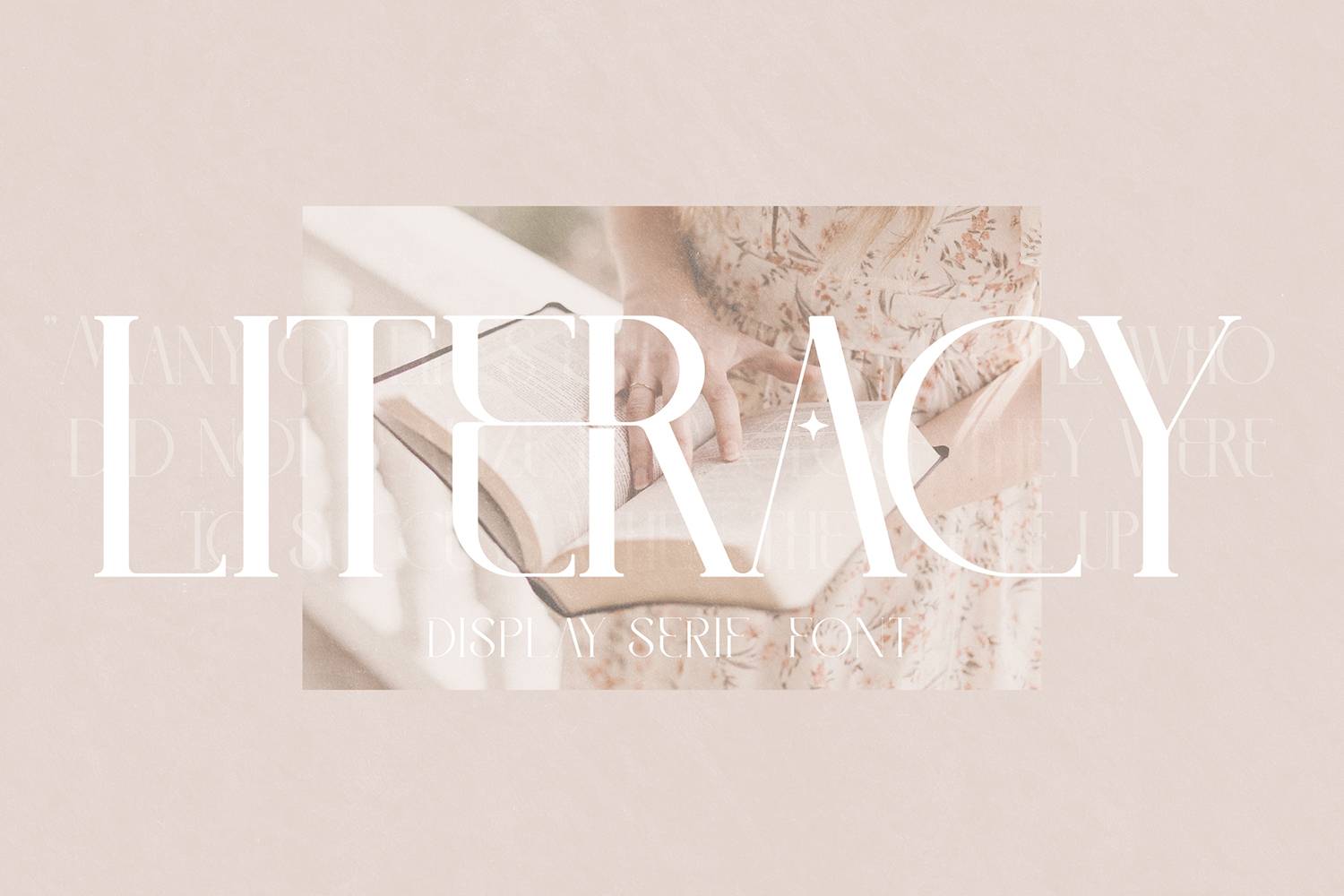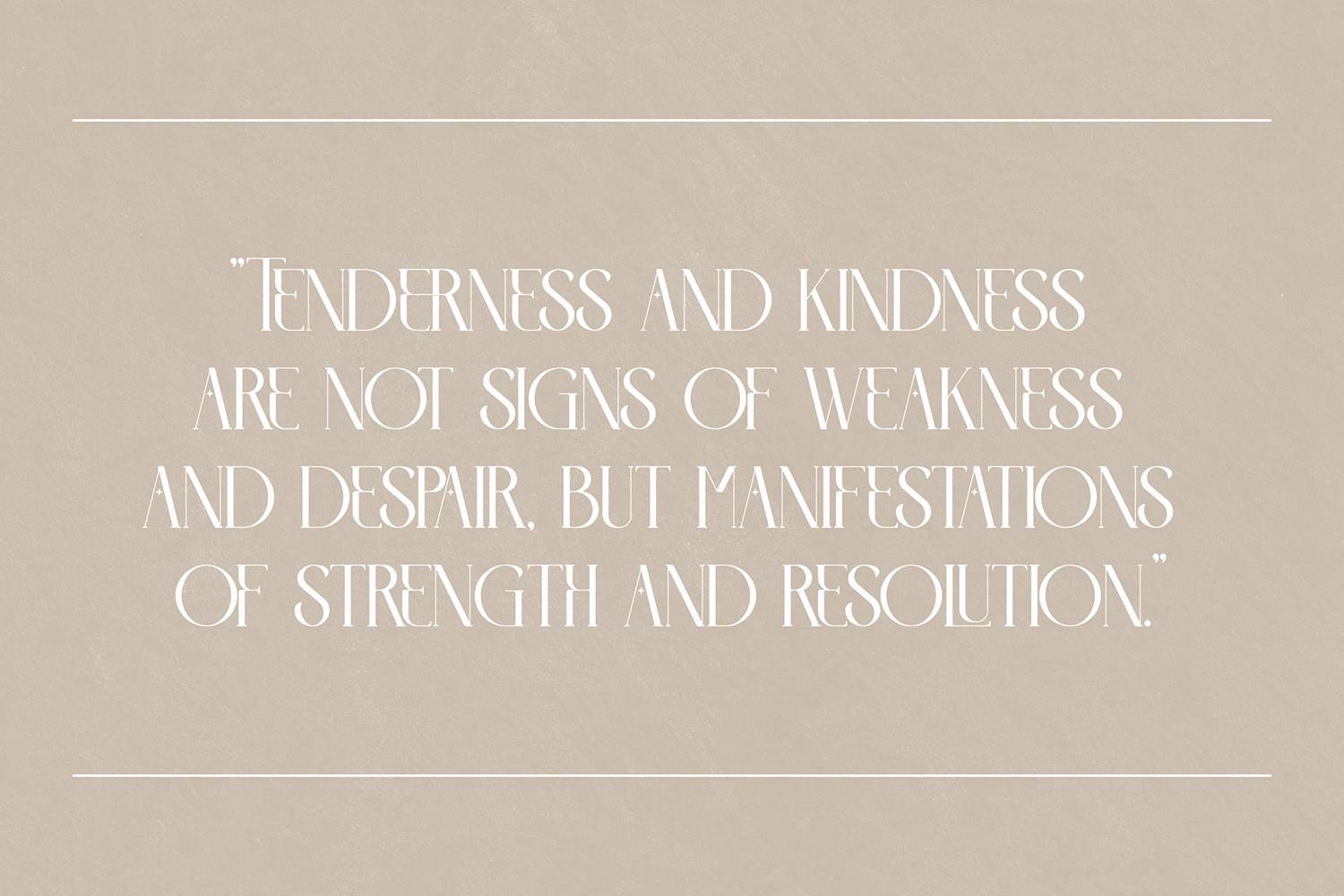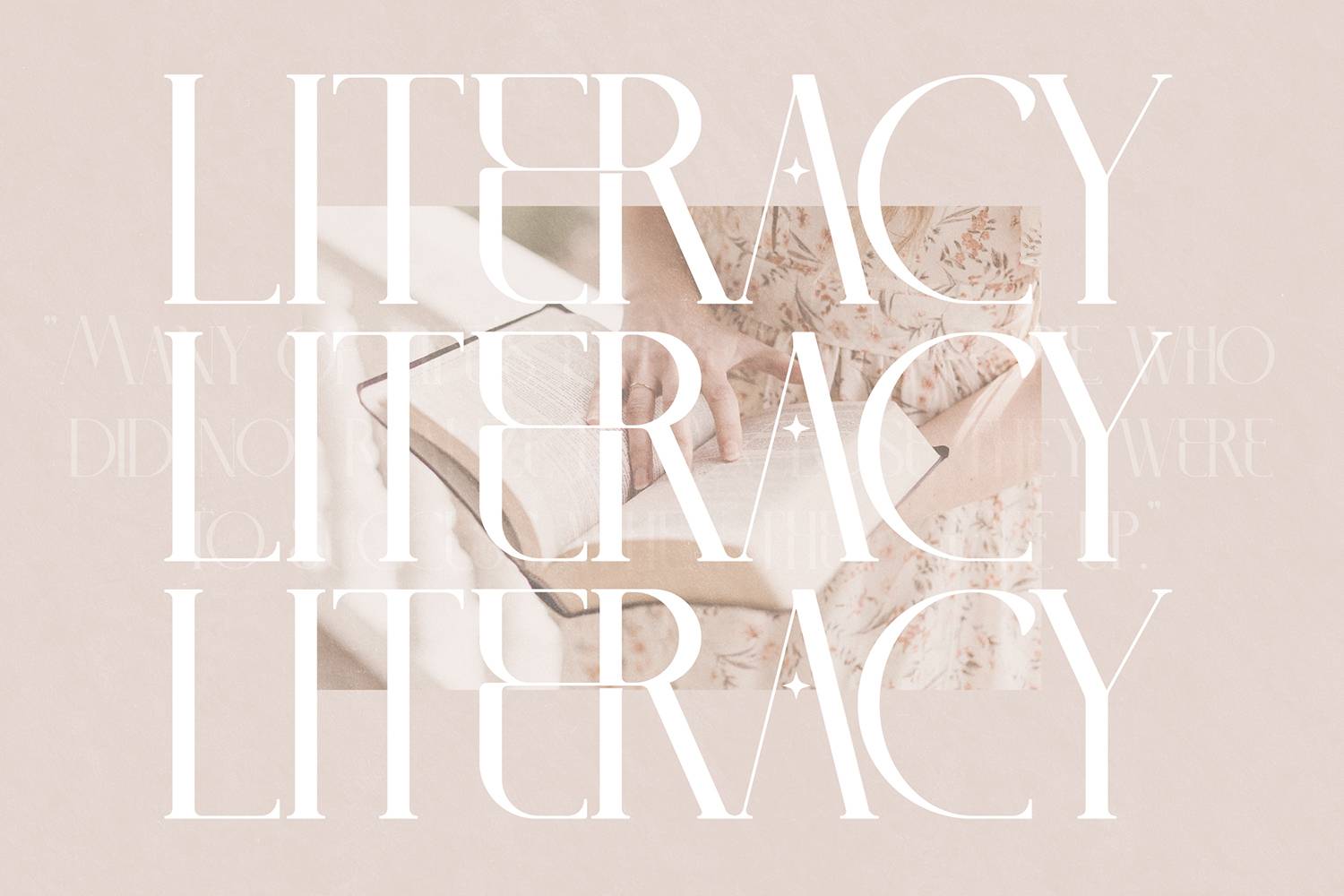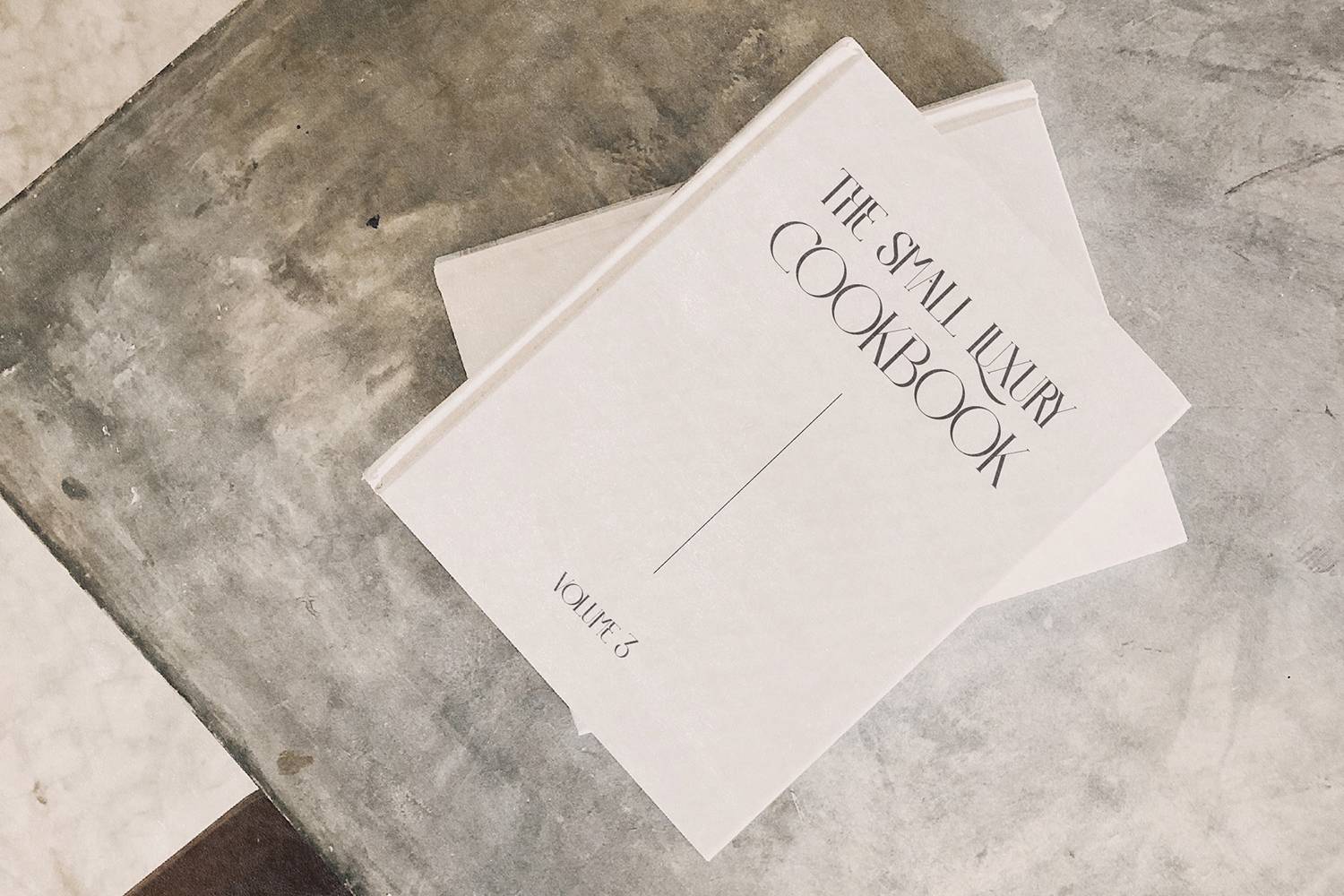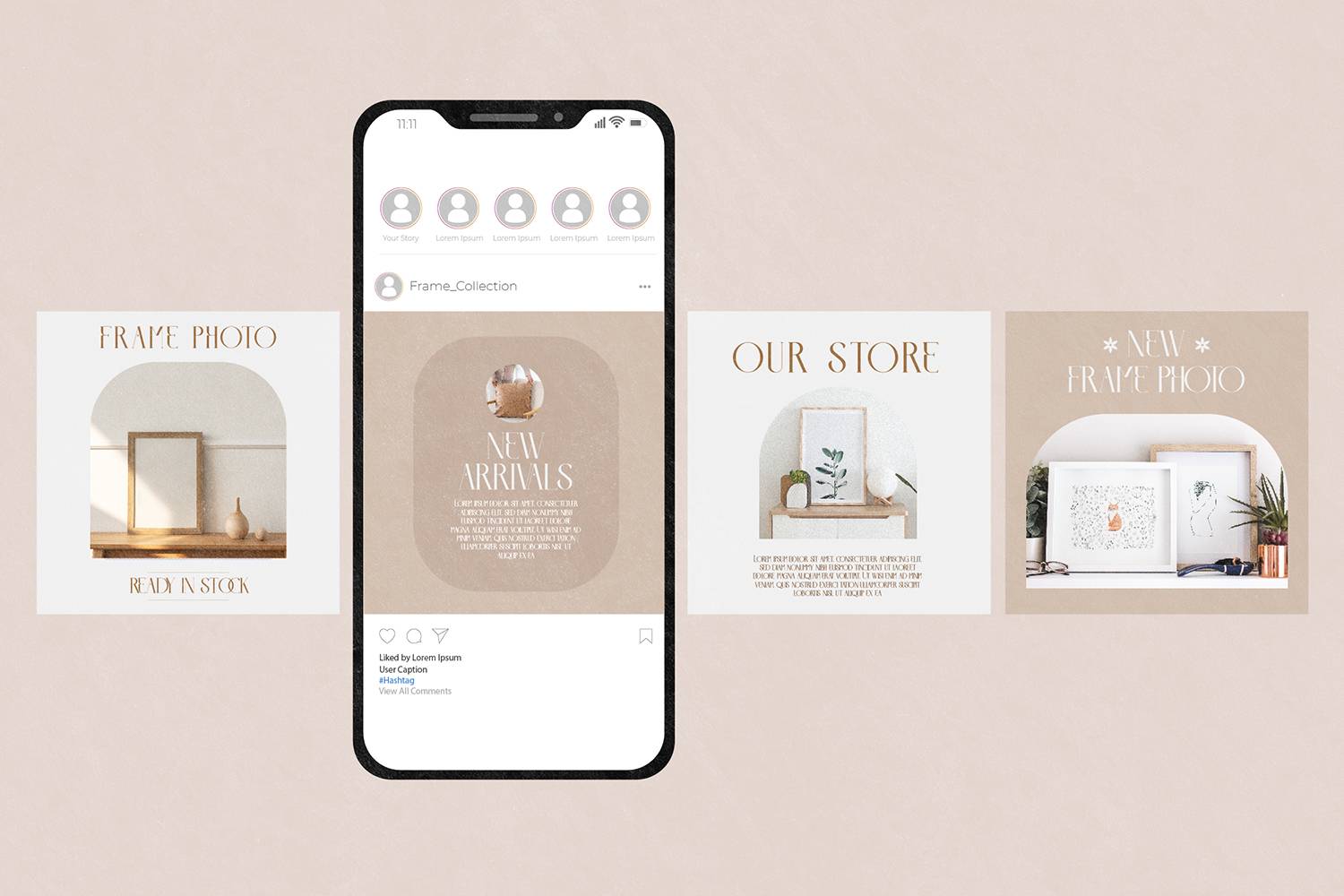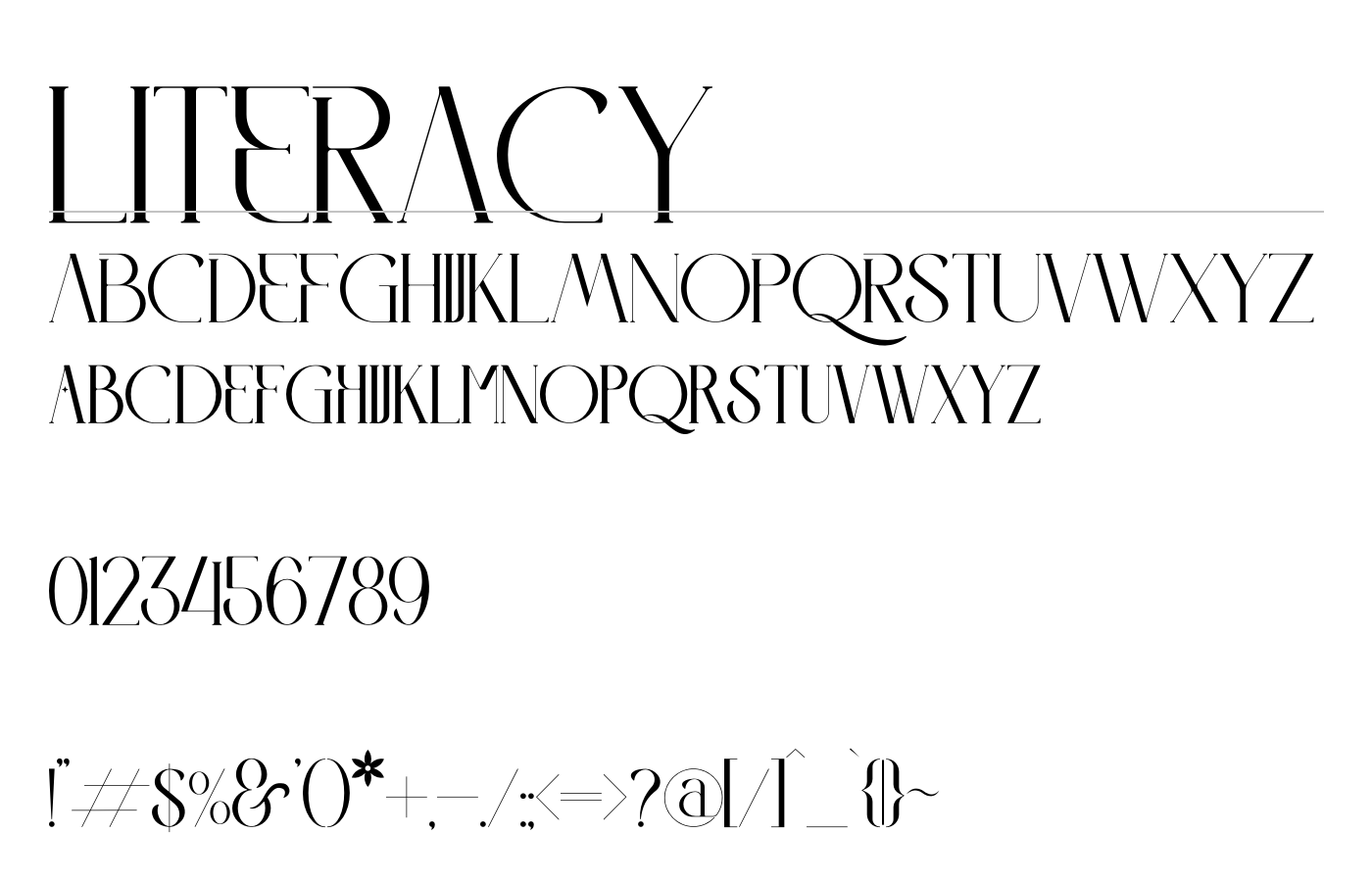
Literacy is a sophisticated serif font featuring very high contrast between its thin and thick strokes, with elegant, elongated letterforms that convey a modern luxury feel. Its tall, narrow characters and fine details make it ideal for upscale editorial headlines, fashion branding, and striking logo designs where a refined and artistic impression is desired. This font’s delicate balance of sharp serifs and stylish curves brings a sense of exclusivity and elegance to any design.
Literacy Font